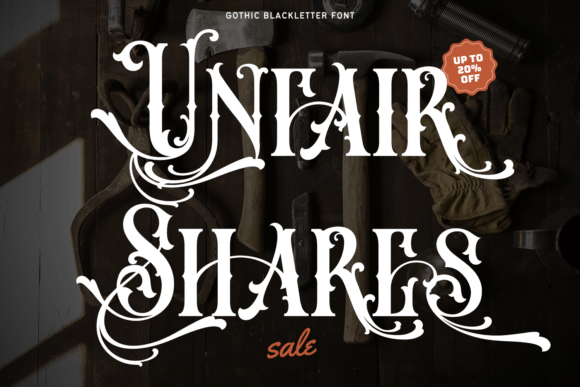
Embrace the Unfair Shares Font - Bold and Daring Typography for Unforgettable Designs
In a world of ordinary fonts, Unfair Shares stands tall, an extraordinary blackletter masterpiece that commands attention with its striking features and unwavering boldness. Its strokes, sharp as a whip, dance across the page, leaving a trail of undeniable elegance and charm.
With Unfair Shares, transform your designs into captivating masterpieces. Behold the power of this font as it brings life to product packaging, branding, and every creative endeavor that demands audacity and panache. Whether you're a seasoned designer or a typography enthusiast, Unfair Shares is your passport to design excellence.
Dare to be Unfair - Unleash Your Creative Genius
Unleash your inner artist and let Unfair Shares ignite your creativity. Let your imagination run wild as you explore the endless possibilities this font offers. Create mesmerizing logos that leave a lasting impression, craft eye-catching posters that demand attention, or design stunning social media graphics that captivate your audience. The possibilities are boundless.
Carve Your Unique Identity - Stand Out from the Crowd
In a sea of conformity, Unfair Shares empowers you to stand out and make a statement. Its distinctive blackletter style exudes individuality and sets your designs apart from the ordinary. Embrace the unfair advantage Unfair Shares offers, and watch as your designs rise above the noise and command the spotlight.
For those who seek fonts that embody boldness, elegance, and a touch of rebellion, Unfair Shares is the ultimate choice. Its sharp edges and captivating curves are a testament to the power of typography, transforming mere words into captivating works of art.